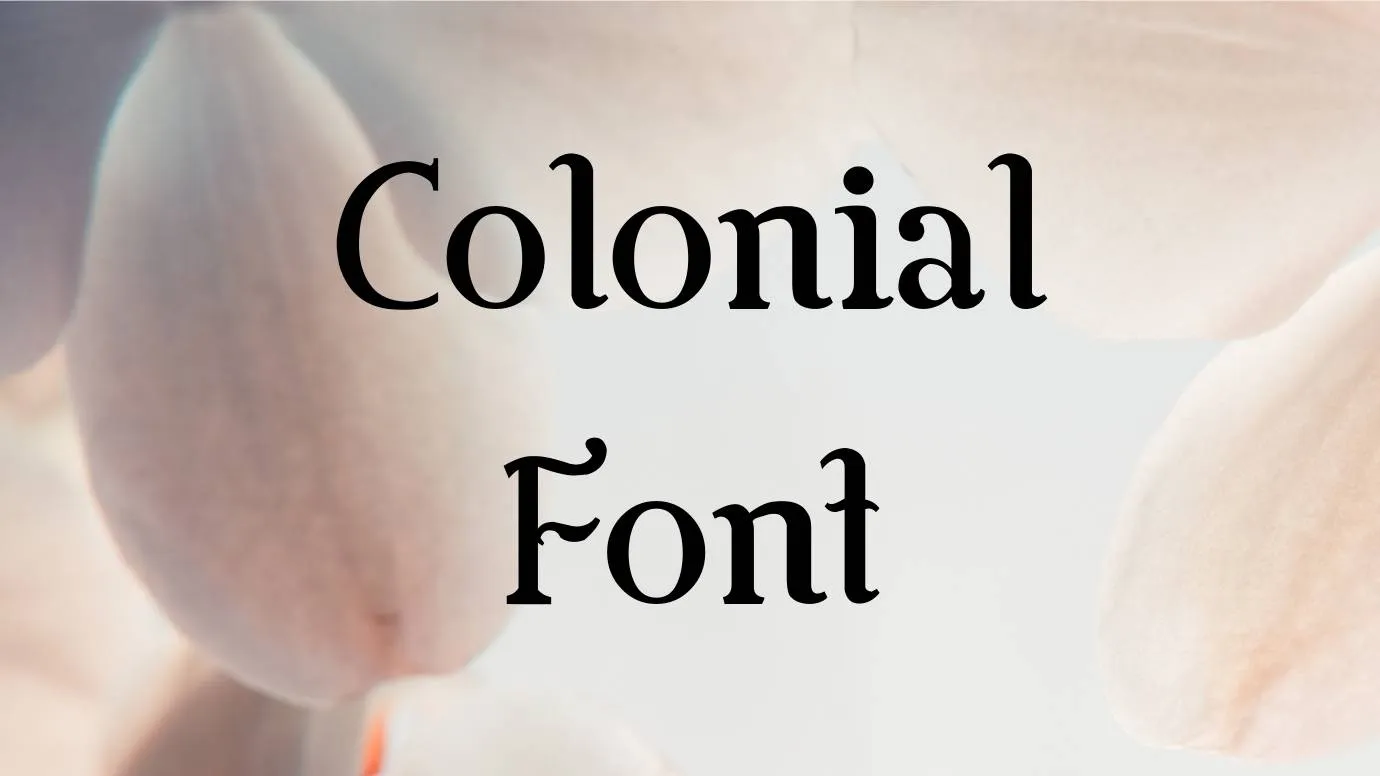
Colonial Font is a Serif font with different advanced features. This cozy font family is available in 6 special weights from Bold to black. It is ideal for both body text and headings and can be used for both print and web projects.
It also comes in 2 famous and unique versions. Today, we are going to present a famous typeface. Its copy and paste are best for many text-type designs. This awesome typeface has supported different international languages.
Colonial Font